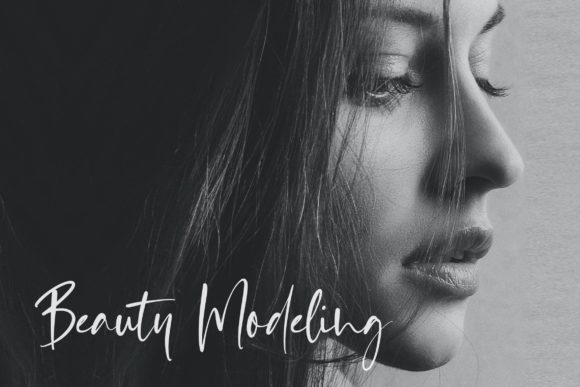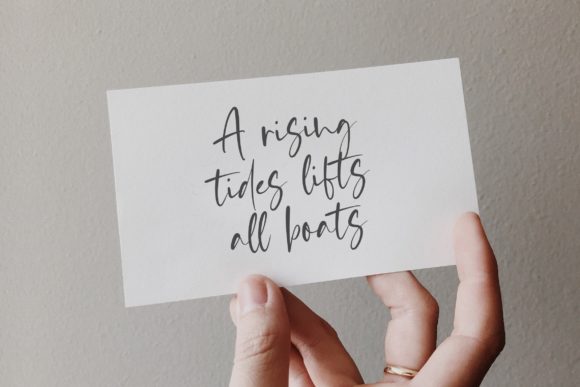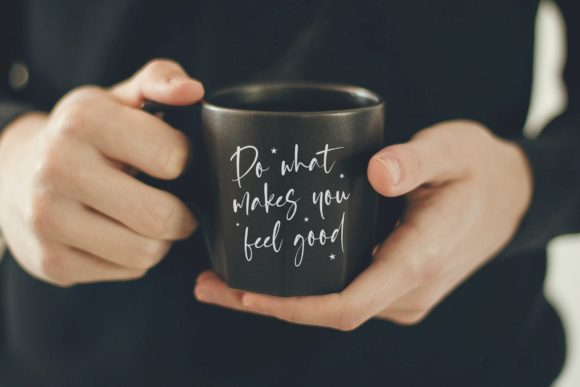
Introduction to Rocksider Font
Rocksider is a stylish, cool and casual looking handwritten font.
It has a classy, elegant and modern look that can be used for logos, branding, invitations, stationery, wedding designs, social media posts, and much more .
Key Features of Rocksider Font